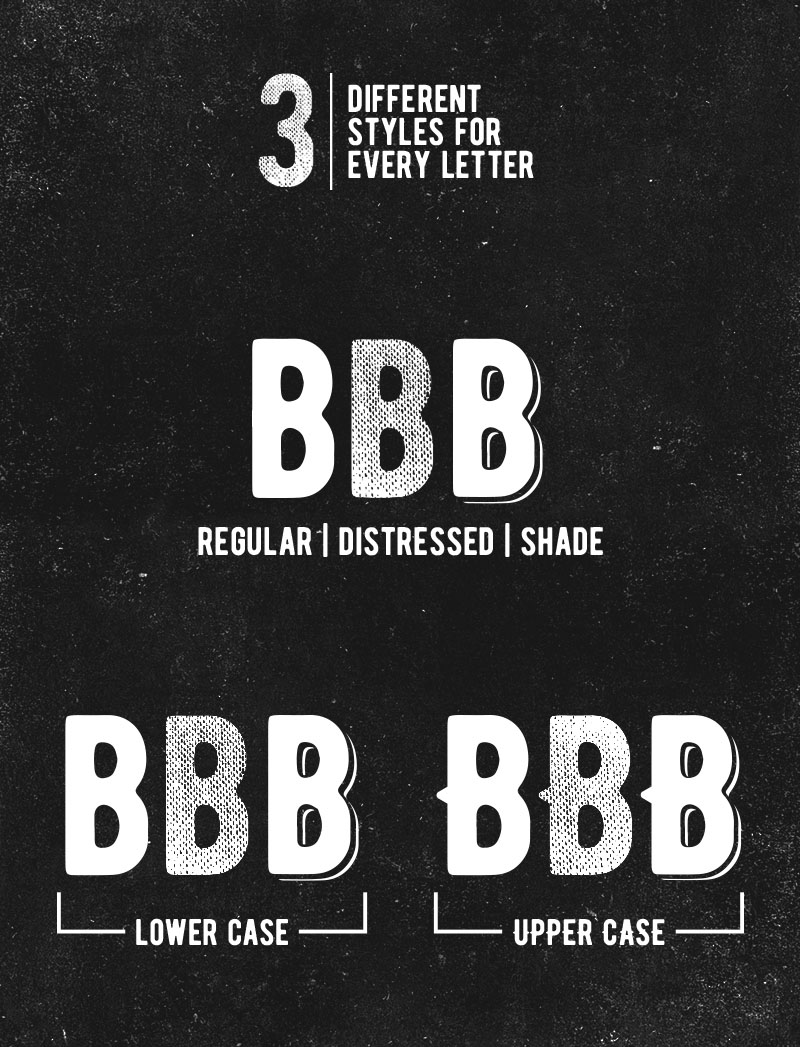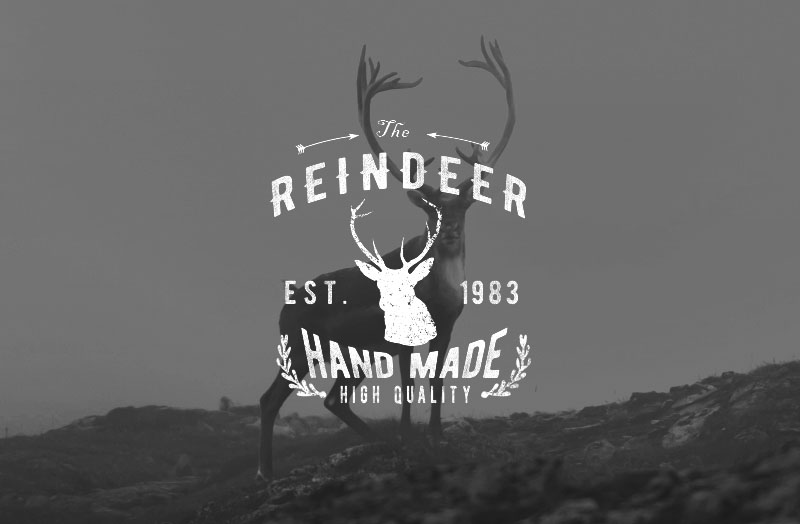
Bernier – Free Font Family
This free vintage style custom font is from Ryan Pyae. Comes in 3 alternatives – regular, distressed & shade. Download & enjoy 😉